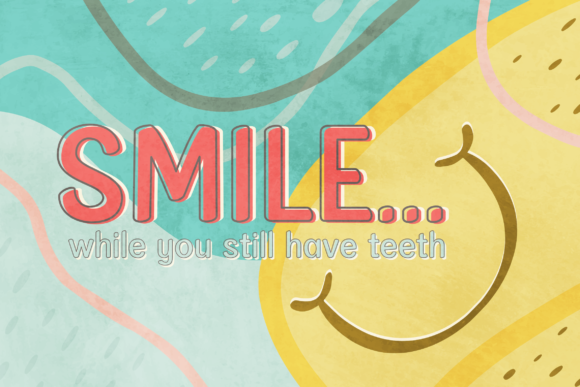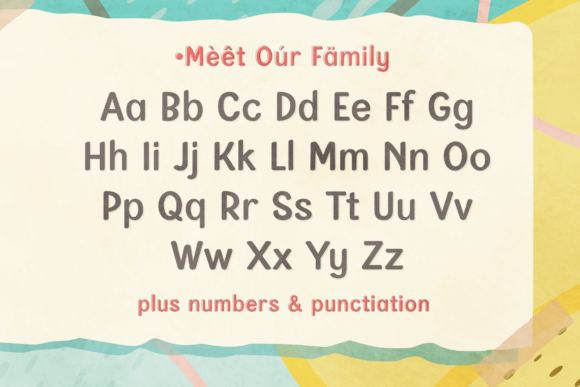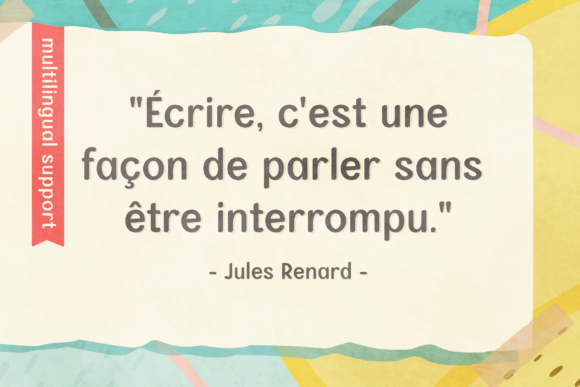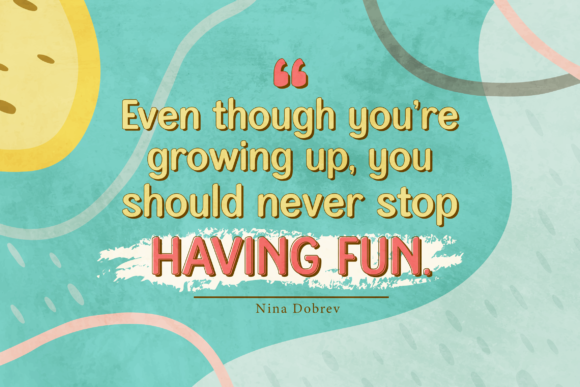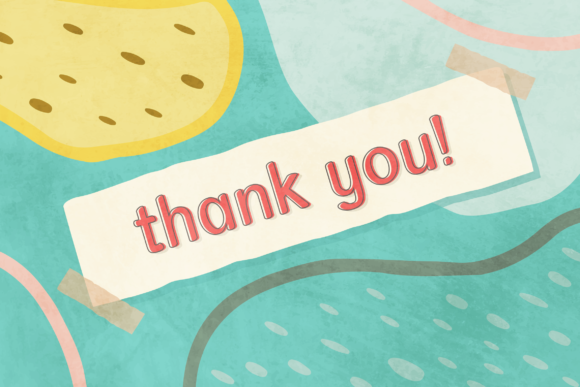
Introduction to Little Pat Font
Do you remember that moment when you finally found the perfect design element to elevate your creative project? For many of us, it’s a feeling of pure excitement and satisfaction. Today, we’re excited to introduce you to the Little Pat Font, a simple yet adaptable display font that will take your designs to the next level.
Whether you’re a seasoned designer or a crafting enthusiast, the Little Pat Font is a valuable addition to your design resource library. This high-quality font is perfect for adding a touch of elegance to your branding, labels, cards, and more. Plus, with a transparent background, you can easily integrate it into your favorite projects without any hassle. And the best part? The Little Pat Font is available for free download, making it an accessible and affordable option for designers of all levels.
Key Features of Little Pat Font
- Includes 1 font style, with 1 weight, making it a versatile and easy-to-use design resource.
- Designed at 96 DPI, ensuring crisp and clear text at standard screen resolutions.
- Perfect for use in digital design projects, including websites, social media graphics, and mobile apps.
Honest Review: Little Pat Font
I recently stumbled upon the Little Pat Font and I’m excited to share my thoughts on this design resource. As a designer, I’m always on the lookout for high-quality fonts that can elevate my creative projects.
Here are some things that work well with the Little Pat Font:
- ✨ Clean and modern design aesthetic
- ✨ Smooth curves and lines
- ✨ Highly versatile, suitable for various design projects
- ✨ Transparent background, making it easy to customize
However, I do have a few concerns:
- ⚠️ Limited character set, may not be suitable for extended texts
- ⚠️ Not as extensive in terms of font weights and styles
Overall, I’m impressed with the Little Pat Font. It’s a great addition to any designer’s toolkit, especially for those looking for a free download with a high-quality design. While it may have some limitations, I believe it’s still a valuable resource for creative projects. I’ll definitely be using it in my future designs.
How to Use Little Pat Font
The Little Pat Font is a versatile and high-quality design resource ideal for various creative projects. With a transparent background, this font offers endless possibilities for customization and flexibility.
Tips for Getting the Most Out of Little Pat Font
For optimal results, experiment with different font sizes, colors, and combinations to achieve a unique look. Also, consider pairing the Little Pat Font with other design elements, such as icons and graphics, to create visually appealing content.
The Little Pat Font is suitable for a wide range of creative projects, including:
- Infographics and charts
Alternatives to Little Pat Font
1. Comic Sans MS
Comic Sans MS is a popular sans-serif font that is suitable for a wide range of creative projects, including flyers, posters, and social media graphics. It is a high-quality font that is easy to read and comes with a transparent background, making it ideal for design projects that require a clean and modern look.
When to use: Comic Sans MS is best used for informal and playful design projects, such as children’s educational materials, advertising, and entertainment.
Comparison to Little Pat Font: Comic Sans MS has a similar playful and informal feel to Little Pat Font, but it is more versatile and can be used for a wider range of design projects.
Pacifico Font is a beautiful and elegant script font that is perfect for creative projects that require a touch of sophistication and elegance. It is a high-quality font that is available for free download and comes with a transparent background, making it ideal for design projects that require a clean and modern look.
When to use: Pacifico Font is best used for high-end design projects, such as luxury branding, weddings, and special events.